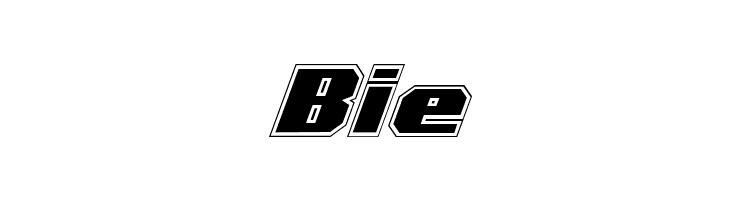
Expressive, outlined emoji icons with bold lines and varied emotions.
A decorative font with whimsical, hand-drawn illustrations and playful text.
A jagged, energetic font with sharp, irregular edges.
A decorative dotted font ideal for retro and playful designs.
A playful, bold font with rounded edges and a friendly appearance.
A bold, outlined font with a playful and cartoonish style.
A bold, rounded font with a playful and friendly style.
An intricate decorative font with elaborate ornamental designs.
A bold, oblique font with strong, slanted letterforms.
A playful, decorative font with whimsical patterns and bold, rounded characters.
An ornate, decorative font with intricate swirls and flourishes.
Highly decorative ornamental flourish font for embellishments.
A bold, playful font with rounded edges and a cohesive, friendly style.
A bold, decorative font with star-shaped cutouts and thick outlines.
A bold, modern font with a unique diagonal stripe pattern.
A playful set of educational dingbats featuring school-related icons and symbols.
A playful, handwritten-style font with a whimsical and friendly appearance.
An intricate and decorative design with elaborate swirls and flourishes.
A diverse set of automotive brand logos and emblems.
Bold, italic, and dynamic with a strong sense of motion.
A futuristic, italic font with a gradient line effect, conveying motion and speed.
A bold, dynamic font with thick, slanted letters conveying power and motion.
A bold, expanded, and italicized font with high contrast and a modern, dynamic style.
A bold, brush-like font with dynamic strokes and a textured appearance.
A bold, cursive script font with fluid connections and elegant flourishes.
Bold, textured sans-serif font with a dynamic, modern style.
A decorative font with swirling, brushstroke-like characters, full of movement and energy.
A whimsical and elegant script font with flowing, cursive letterforms.
A bold, dripping font perfect for horror themes and Halloween designs.
A bold, dynamic typeface with slanted lines conveying speed and motion.
A bold, energetic brush-style font with dynamic strokes and fluid motion.
A bold, slanted font with diagonal line patterns, exuding energy and motion.
A bold, italic font with a modern and dynamic style.
A bold, dynamic script font with fluid strokes and a sense of motion.
A bold, brush-textured font with an adventurous and dynamic style.